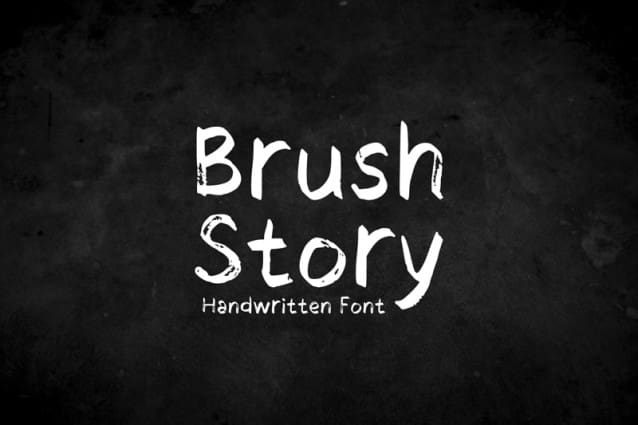
Brush Story Font
Brush Story Font is a natural handwritten brush font. It looks stunning on thank you cards, quotes, greeting cards, logos, business cards, and every other design which needs a handwritten touch.